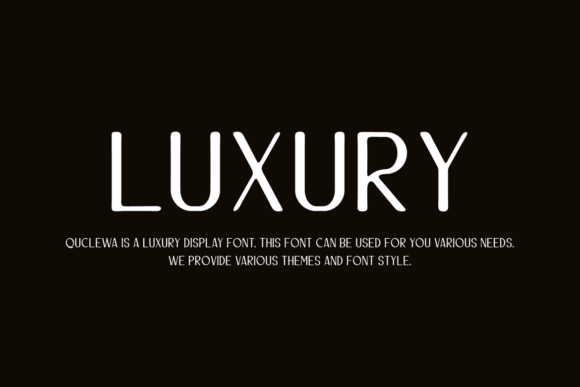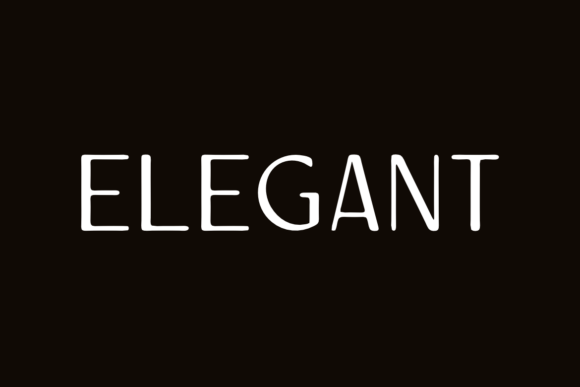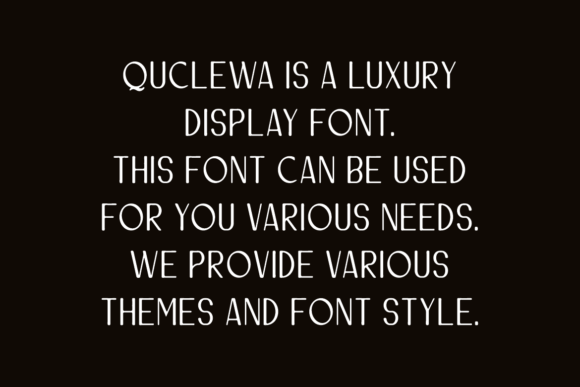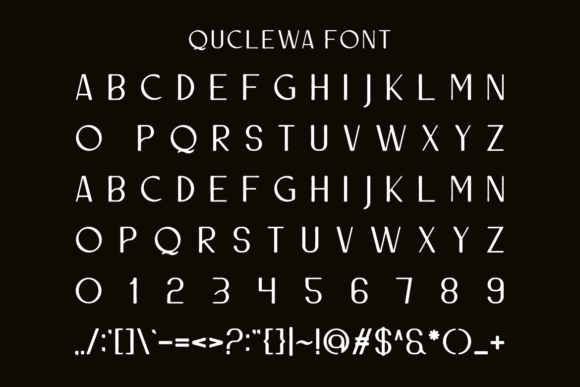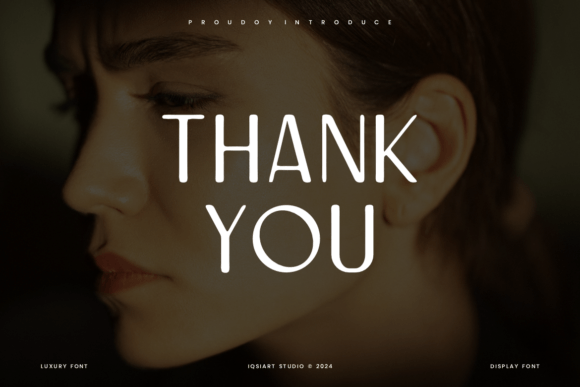
Introduction to Quclewa Font
Have you ever been in the middle of a creative project, staring at a blank page or screen, trying to find the perfect font to bring your vision to life? I know I have. The search can be overwhelming, with countless options available, each promising to elevate your design to new heights. But what if I told you that you might have been looking in the wrong place all along? Enter the Quclewa Font, a stunning sans serif design that will revolutionize the way you approach your next creative project.
As a valuable resource for designers, the Quclewa Font offers a high-quality solution that is both elegant and versatile. Its delicate yet balanced look makes it perfect for a wide range of applications, from branding and marketing materials to digital displays and print publications. And the best part? It’s available for free download, making it an accessible design resource for creatives of all levels.
Whether you’re working on a personal project or collaborating with a team, the Quclewa Font is sure to impress. With its transparent background and sophisticated aesthetic, it’s the perfect choice for anyone looking to add a touch of class to their design. So why wait? Download the Quclewa Font today and discover a new world of creative possibilities.
Key Features of Quclewa Font
- High-quality, unique design: Quclewa Font is a premium design resource perfect for creative projects.
- Transparent background: This font features a transparent background, allowing for seamless integration with any design.
- Size: This font comes in a standard size, making it suitable for various design projects, from small to large-scale creative endeavors.
- Resolution: Quclewa Font is designed to be high-resolution, ensuring crisp and clear typography in any design project.
- Unique characteristics: Quclewa Font boasts an exclusive design that sets it apart from other fonts, making it a valuable addition to any design resource collection.
Honest Review: Quclewa Font
I recently stumbled upon the Quclewa Font, and I must say, it’s been a game-changer for my design projects. The high quality and modern design make it a fantastic resource for any creative project.
- ✨ The font is highly customizable, making it perfect for various design applications.
- ✨ The transparent background feature allows for seamless integration with any image or design element.
While the Quclewa Font excels in many areas, I did encounter a few limitations:
- ⚠️ Limited character set – it would be great to see more characters added to the font in the future.
- ⚠️ Not suitable for large-scale printing – the font may not hold up well to high-resolution printing.
Overall, I’m thoroughly impressed with the Quclewa Font. It’s a fantastic design resource that can elevate any creative project. The free download is a definite bonus, making it accessible to designers of all levels.
While it’s not perfect, the Quclewa Font is definitely worth checking out for any design enthusiast. With its high-quality design and modern features, it’s sure to become a staple in your design arsenal.
The Quclewa Font is a high-quality design resource ideal for creative projects that require a unique and elegant touch. This font is available for free download and offers a transparent background, making it easy to customize and integrate into various design applications.
Tips for Getting the Most Out of Quclewa Font
To maximize the potential of the Quclewa Font, experiment with different font sizes, colors, and styles to create a unique and eye-catching design. Also, consider combining the font with other design elements, such as images or graphics, to add depth and visual interest to your project.
Common Use Cases for Quclewa Font
The Quclewa Font is ideal for a variety of creative projects, including wedding invitations, business cards, and marketing materials. Its elegant and sophisticated design makes it perfect for formal events or professional presentations.